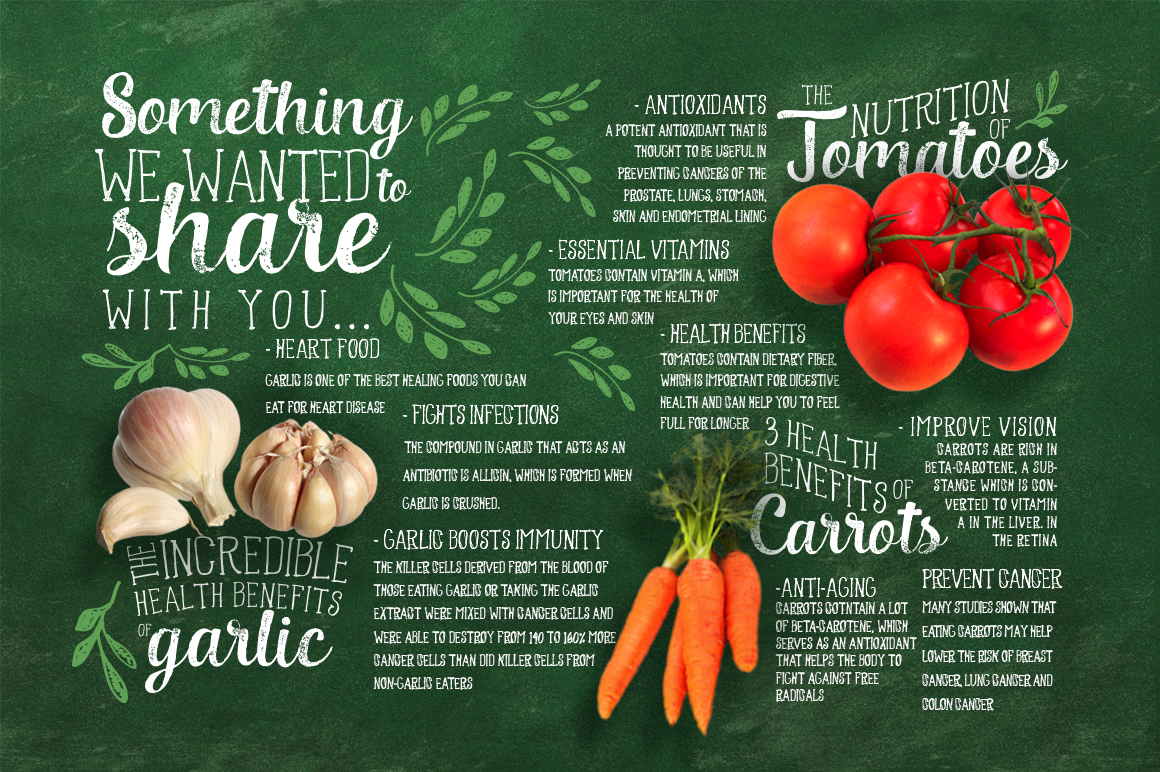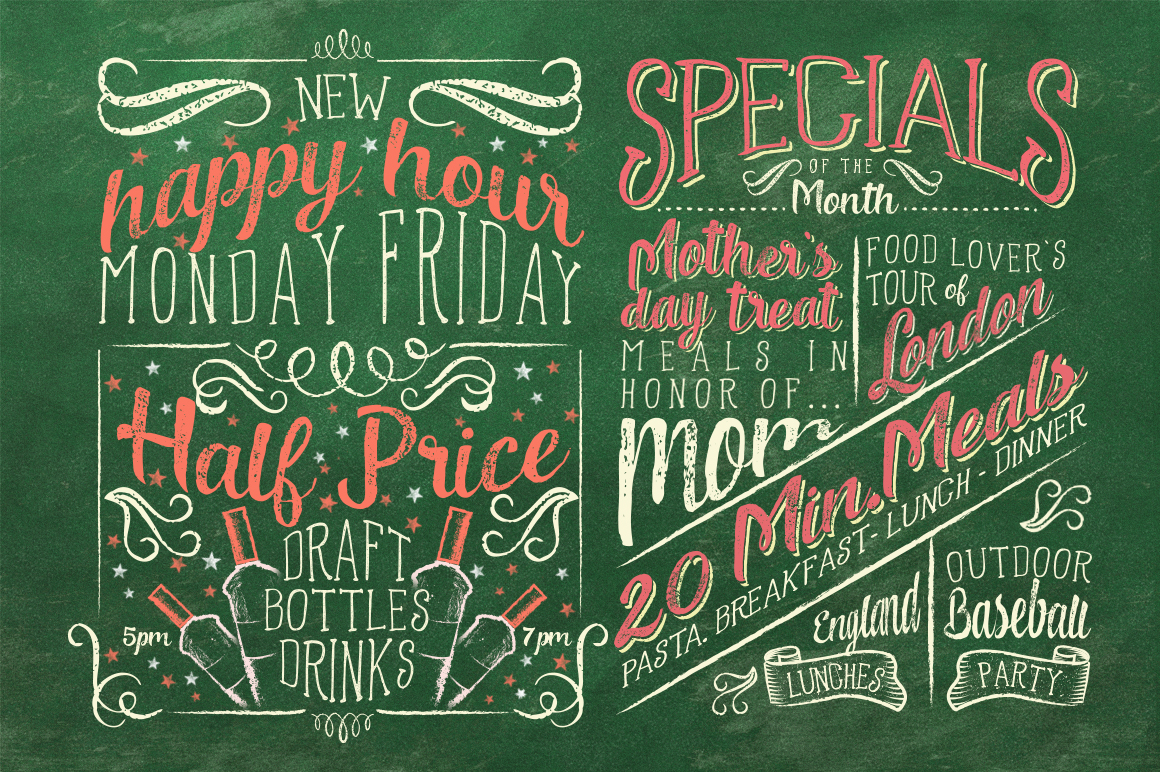
LaChalk Font
db-ku.com - Script & Handwritten -- LaChalk is a cafe menu inspired type, specifically designed to create that care/restaurant chalk effect.